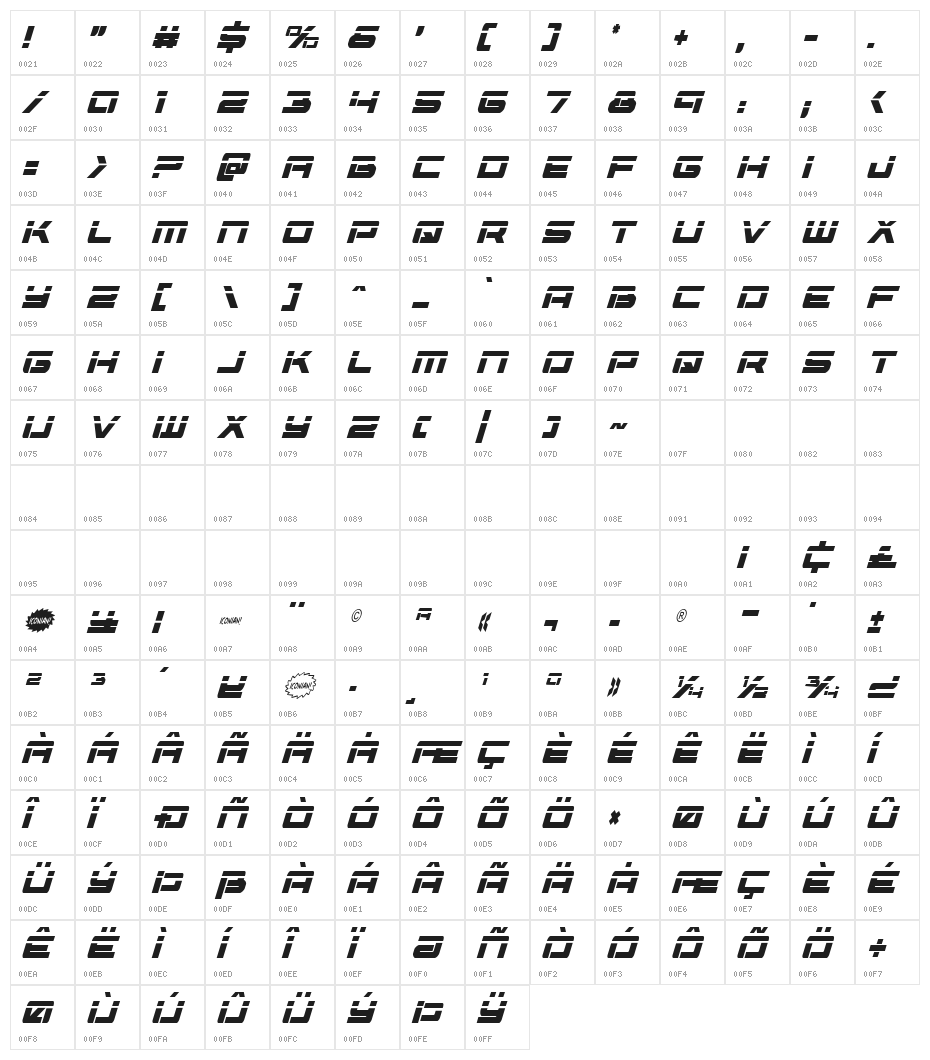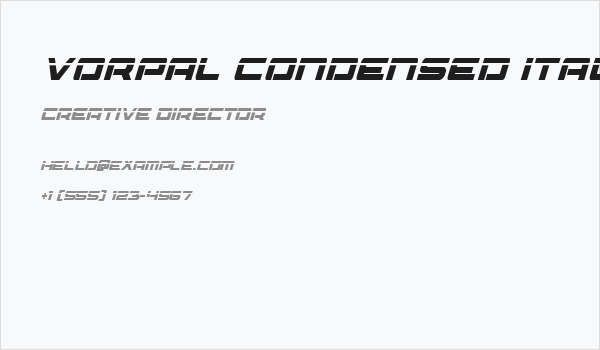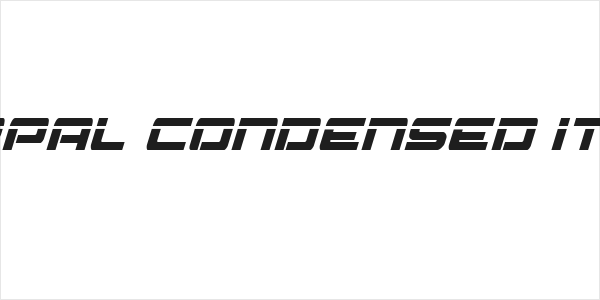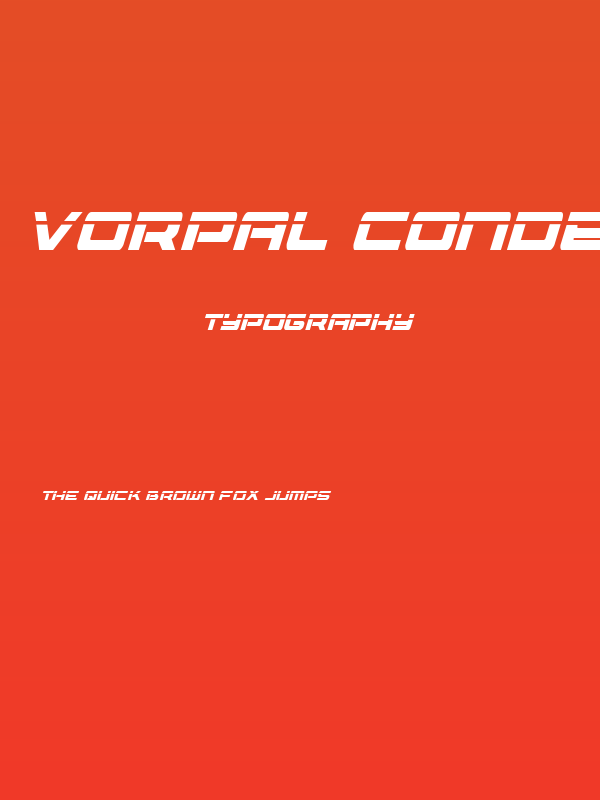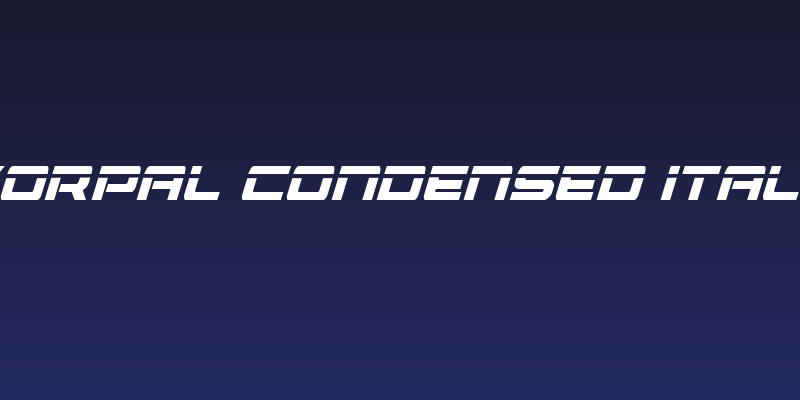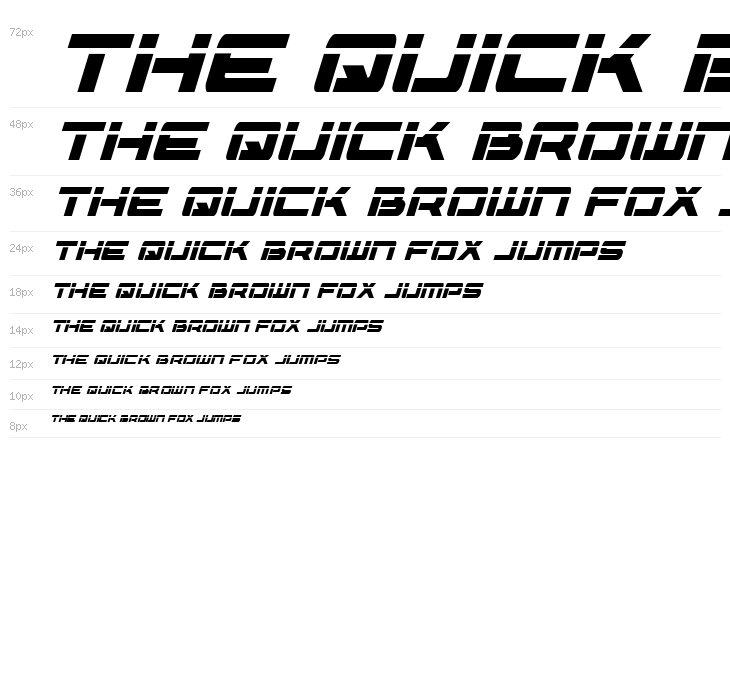
Vorpal Condensed Italic Font
Vorpal Condensed Italic Description
This font features a futuristic and dynamic design, characterized by its condensed and italicized form. The letters are sharply angled with a distinct forward slant, giving a sense of motion and speed. The strokes are bold with a consistent thickness, providing a strong visual impact. The geometric shapes and clean lines contribute to its modern and sleek appearance. The numbers and special characters follow the same stylistic approach, ensuring uniformity across all elements. This font is ideal for projects that require a bold and contemporary look.
| Proposed Projects | Ideal for tech-related branding, sports team logos, video game titles, and sci-fi movie posters. |